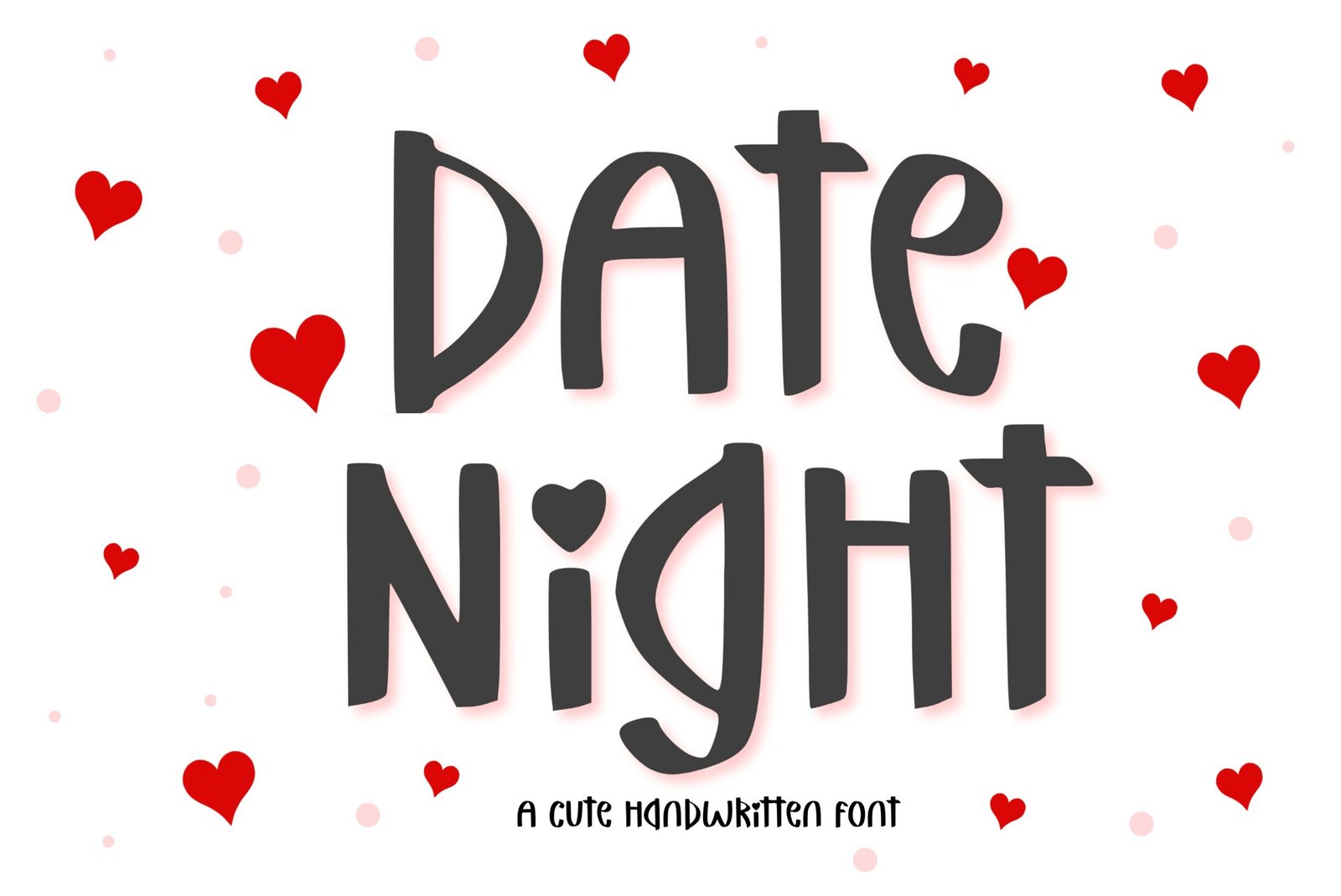
Date Night Font
Cute handwritten font. “Date Night”. Perfect for goodnotes, student projects, classroom, school teachers, advertising and display purposes, including banners, book covers, shirts, posters, logos and much more!
Font includes all alphabet letters, numbers, characters, and punctuation.